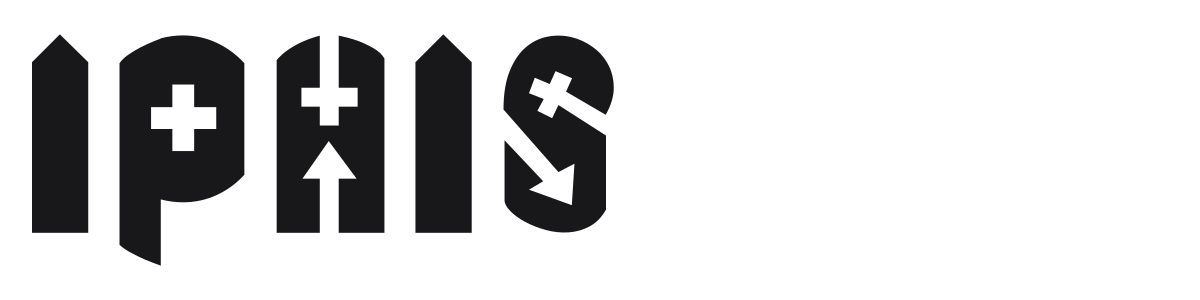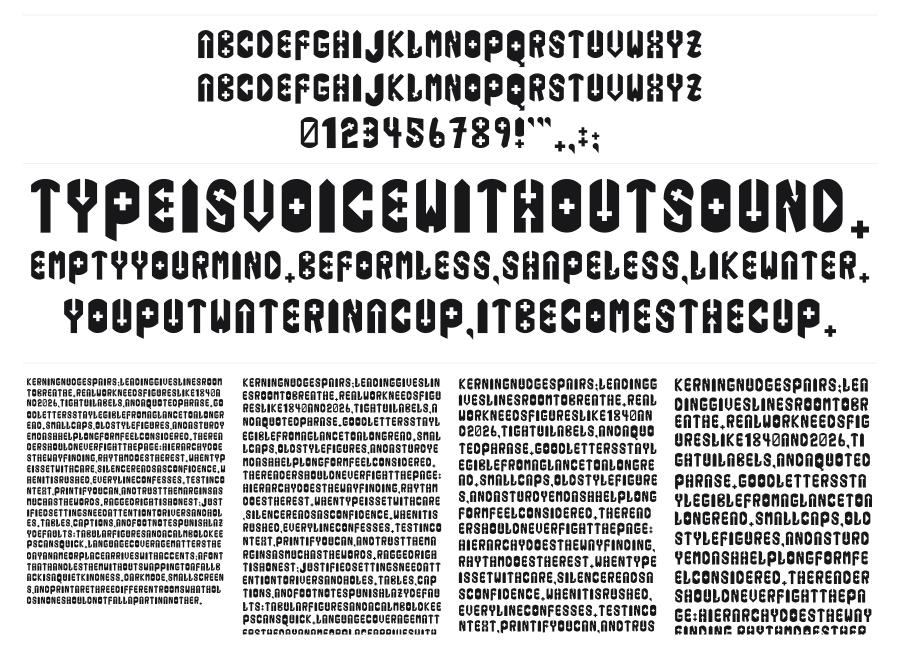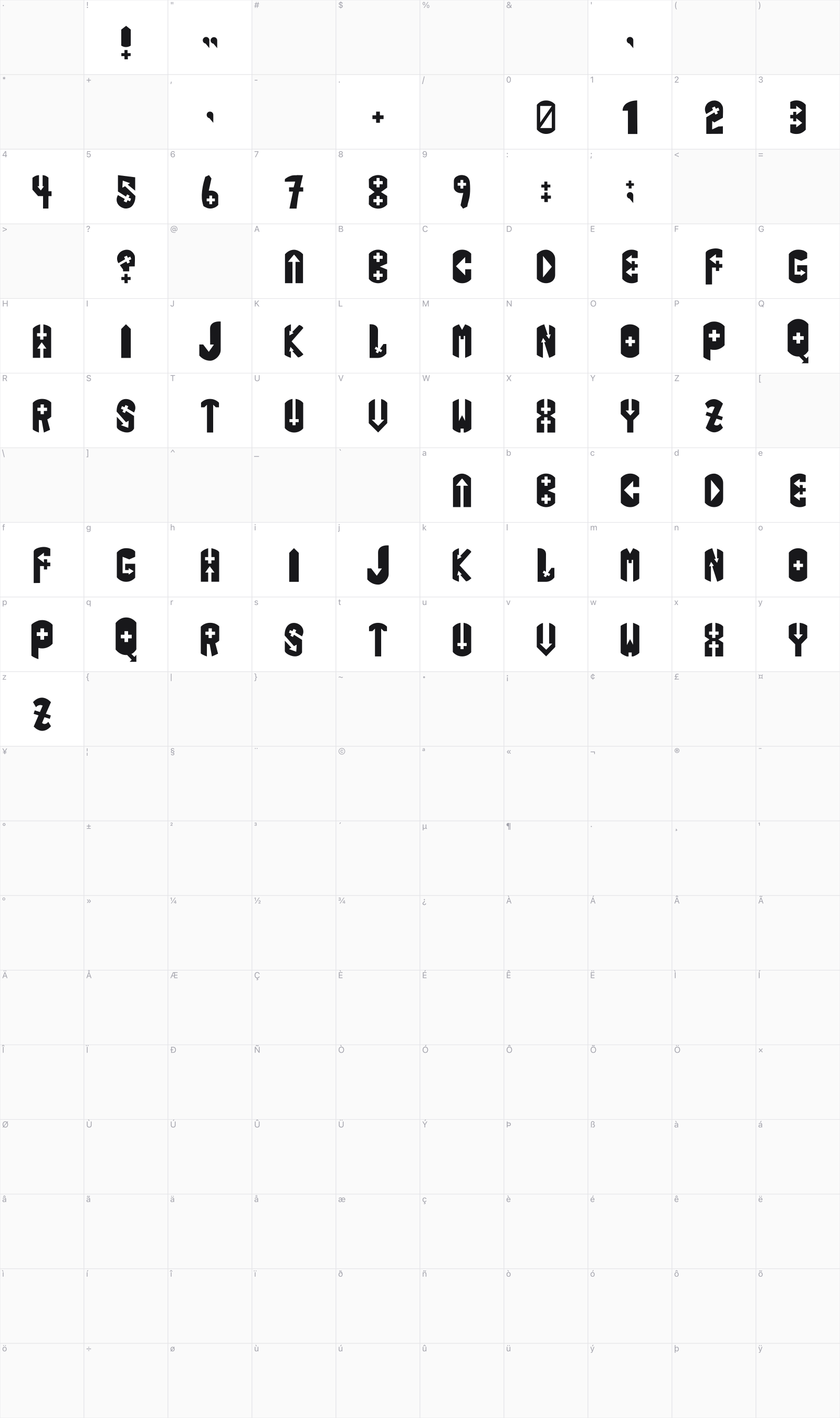
Iphis
Iphis is a heavy condensed display font designed specifically as a title font for an LGBT advocacy wordmark, named after an androgynous figure from Ovid's Metamorphoses. Each character is built on a bold rounded-rectangular frame with directional arrows and cross symbols cut into the forms as white negative space, embedding symbolic meaning directly into the letterforms. The result is a font with a strong, unmistakable voice that works at large sizes where its visual motifs can be read clearly.